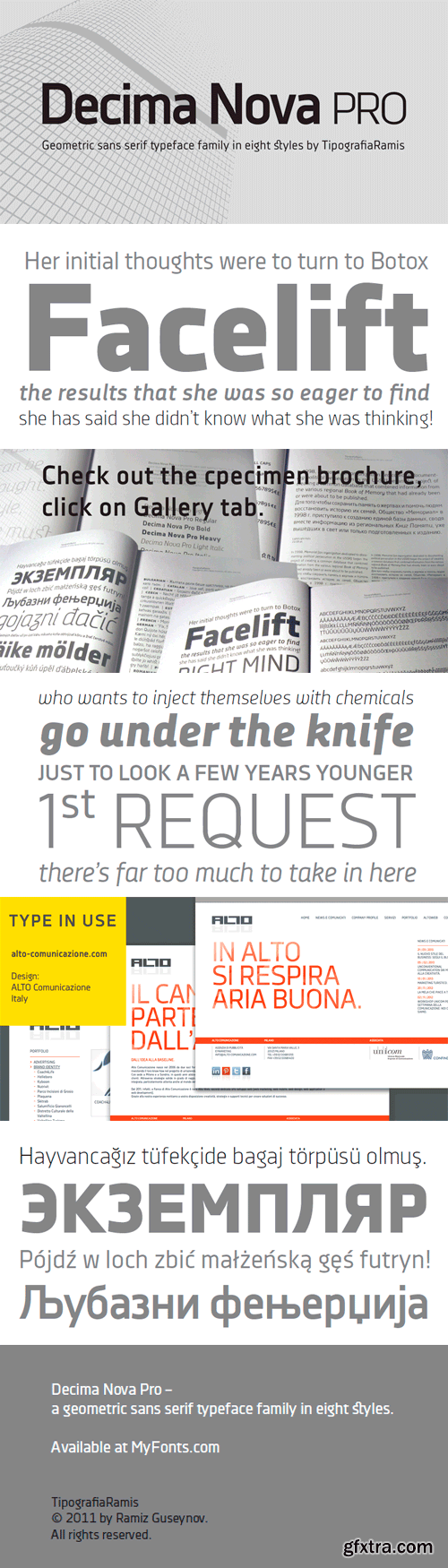
Decima Nova Pro Font Family
Decima Nova Pro is a geometric sans serif typeface family, built in eight styles. The typeface is ideal for use in display sizes, but also is quite legible in text and is well suited for editorial and brand design. Features include extended language support, small caps, multiple numeral styles, slashed zero, ligatures. Decima Nova Pro is released as font family in OpenType format with a Latin Western 1252, Eastern European 1250, Baltic 1257, Turkish 1254 and Cyrillic 1251 character set.